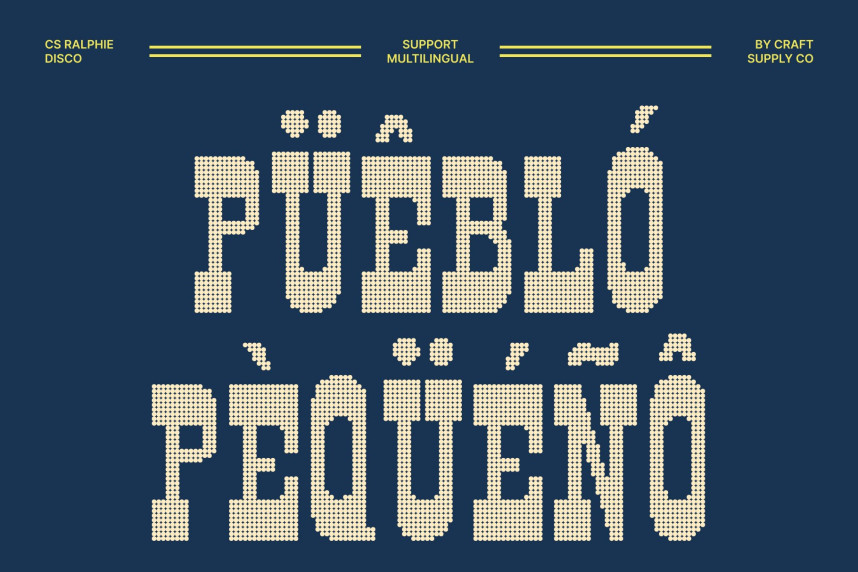
CS Ralphie Disco Font
CS Ralphie Disco Font – Western Boldness with Sparkling Frontier Flair Old Western Spirit with Disco Energy. This is a striking western-inspired display font that blends the rugged charm of frontier typography with a vibrant disco-style dotted texture. Inspired by vintage saloon signage and classic Western posters, its bold slab serif structure delivers a strong and grounded presence. The added dotted sparkle introduces a lively visual rhythm, creating a unique fusion of rustic character and festive flair.